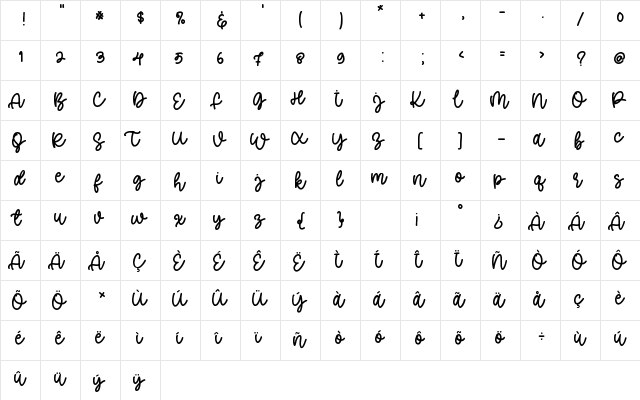
Father Farmhouse Script Regular
Design Context for Father Farmhouse Script Typeface
Father Farmhouse Script flows with the natural rhythm of handwritten lettering, making it ideal for designs that call for warmth and personal expression.
Font Pairing: Combine Father Farmhouse Script with a simple geometric sans for maximum contrast — the tension between flowing curves and clean structure is a classic typographic pairing.
Pro Tip: Use Father Farmhouse Script for short runs of text — names, titles, or taglines. Extended body copy in script faces tires the eye quickly.